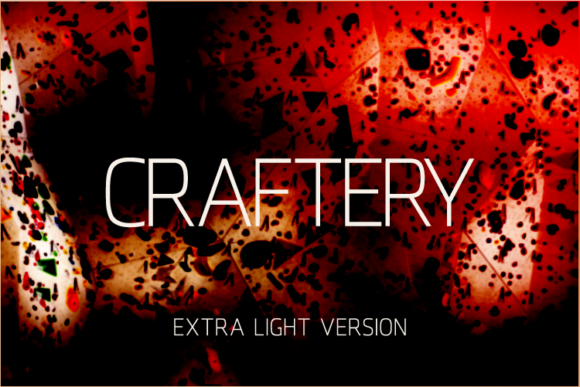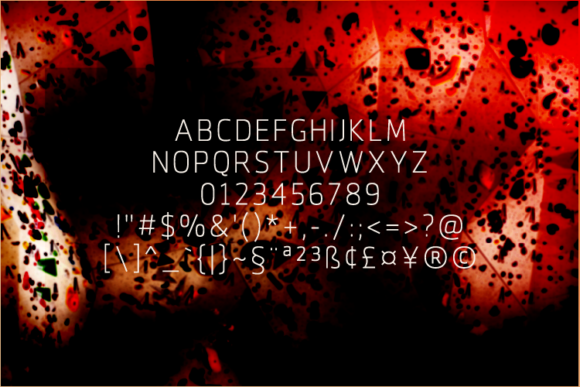
HomeSans Serif FontsCraftery Extra Light Font Sans Serif Fonts Craftery Extra Light Font FacebookXPinterestWhatsApp Craftery Extra Light Font 1 of 2 About Craftery Extra Light Font Craftery is a modern sans serif font inspired by the simplicity of classic geometric shapes. It will add a minimalist feel to any design project! DOWNLOAD NOW People also explored MFC Zulu Monogram Opendoor Font Chickpea Font Bref Font Nananina Font Forselia Font Hello Peanut Font Sweet Candy Pink Font Softly Font 345 0 TagsCraftery Extra Light Font Previous articleCraftery Light FontNext articleCraftery Thin Font LEAVE A REPLY Cancel reply Comment: Please enter your comment! Name:* Please enter your name here Email:* You have entered an incorrect email address! Please enter your email address here Website: Save my name, email, and website in this browser for the next time I comment. Personal Use Free Eits Personal Use Free Read more about this font Cheese Matcha Font Personal Use Free Read more about this font Little Pigeon Personal Use Free Read more about this font Doriath Personal Use Free Read more about this font BLOG Transform Your Website: Elevate Your Typography with 7 Best Web Font Generators Are you ready to transform your website's typography from ordinary to extraordinary? Great! Today, we're diving into the world of web font generators, which... Where to Buy American Fonts Online in 2024 Top 10 Handwritten Fonts That Elevate Your Designs Free Fonts Risk: Why Free Fonts Can Be Dangerous for Designers